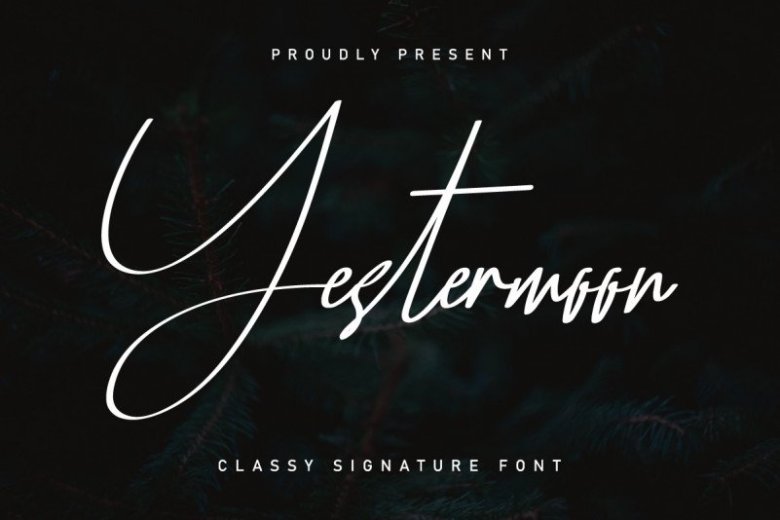
Yestermoon Signature Script Font
Yestermoon is a signature script font. The style of this font are simple, classic, luxury, glamour and elegant handwritten pen.